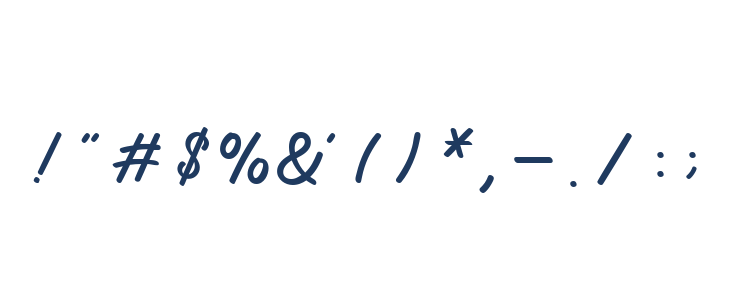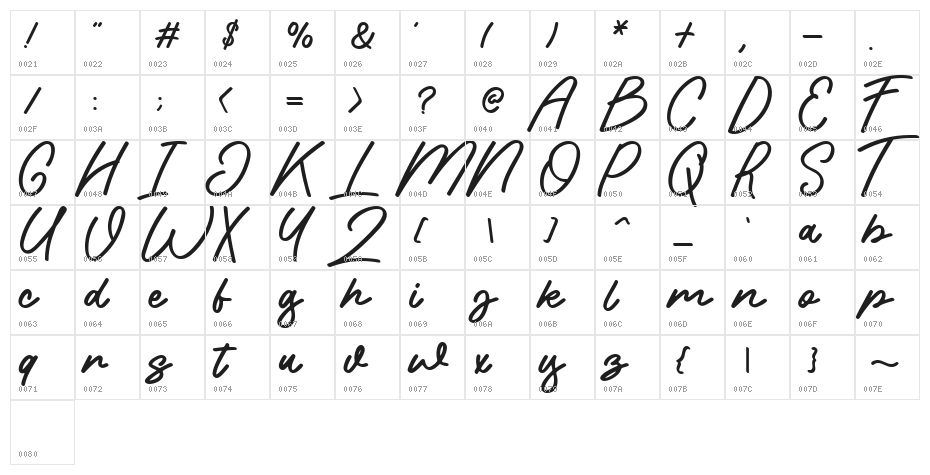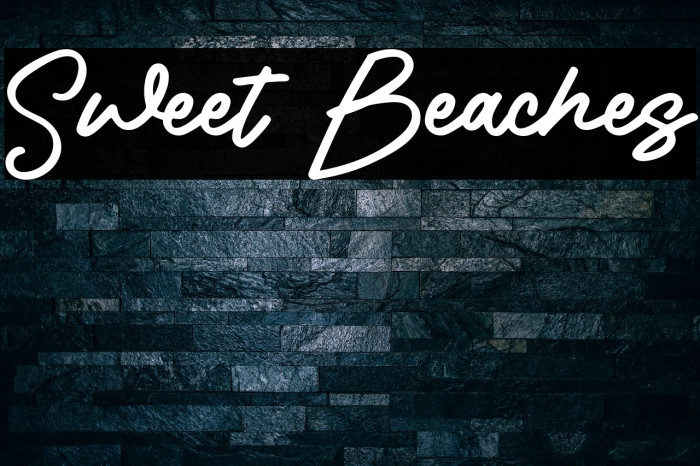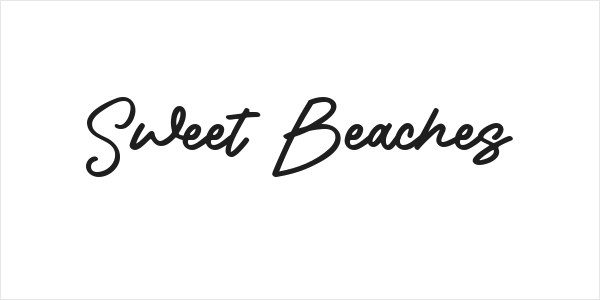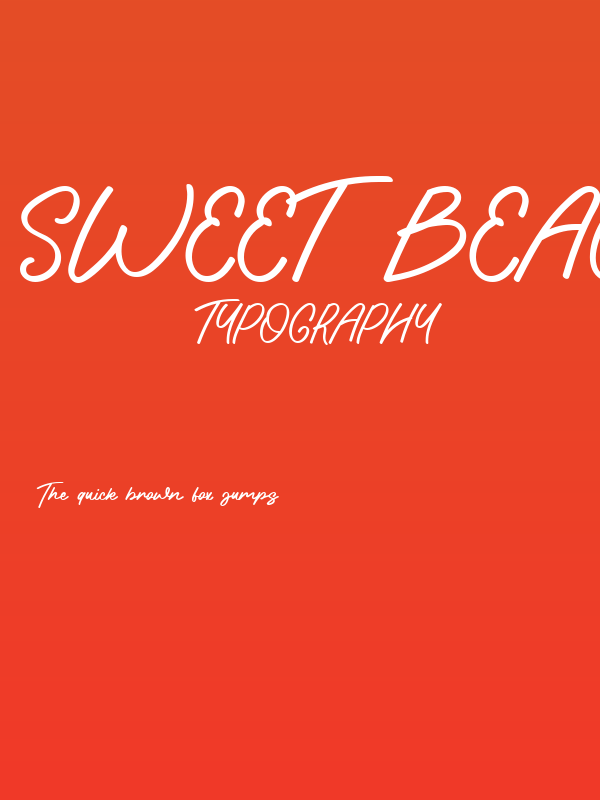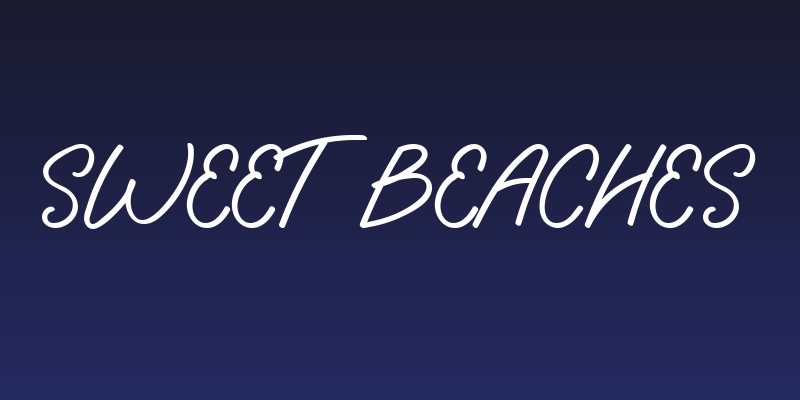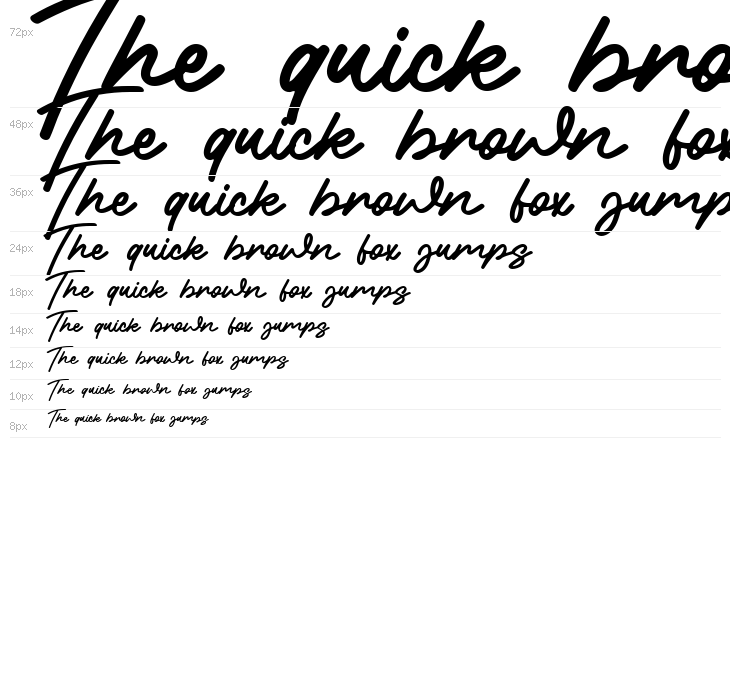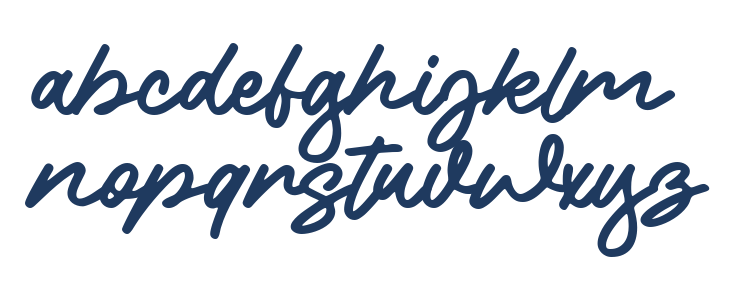
Sweet Beaches Font
Sweet Beaches Description
This font features a dynamic and fluid script style, characterized by its smooth, flowing lines and elegant curves. The uppercase letters exhibit a graceful, slightly slanted form, while the lowercase letters maintain a cohesive and connected appearance, enhancing the script's natural flow. The numerals and special characters are designed to complement the overall aesthetic, maintaining the same fluidity and elegance. The font's style is both modern and timeless, making it versatile for various design applications. Its legibility is maintained despite the decorative nature, making it suitable for both display and text purposes.
| Use Case | Logos, Invitations, Headlines |
| Proposed Projects | Ideal for wedding invitations, branding, packaging, and social media graphics. |